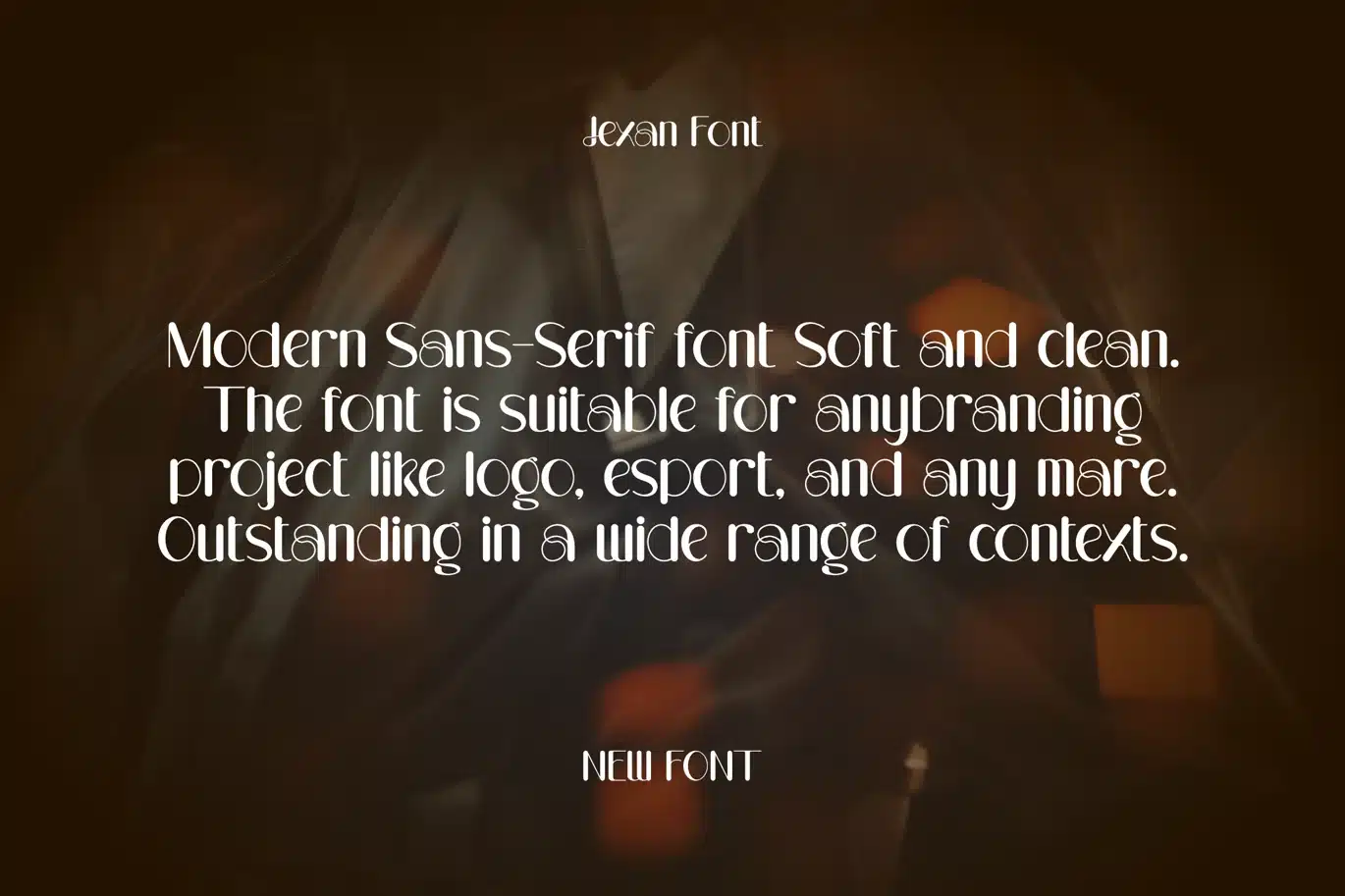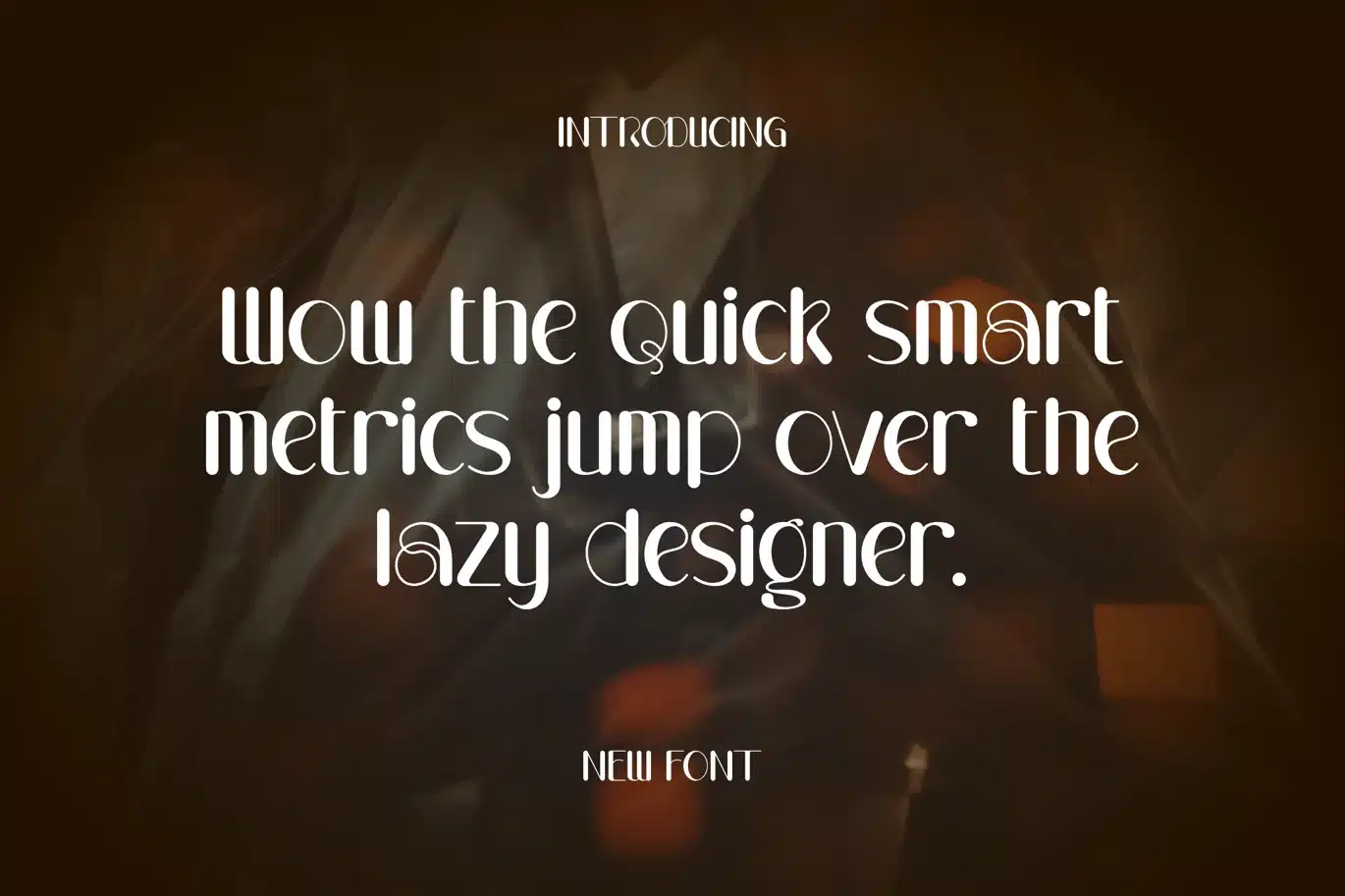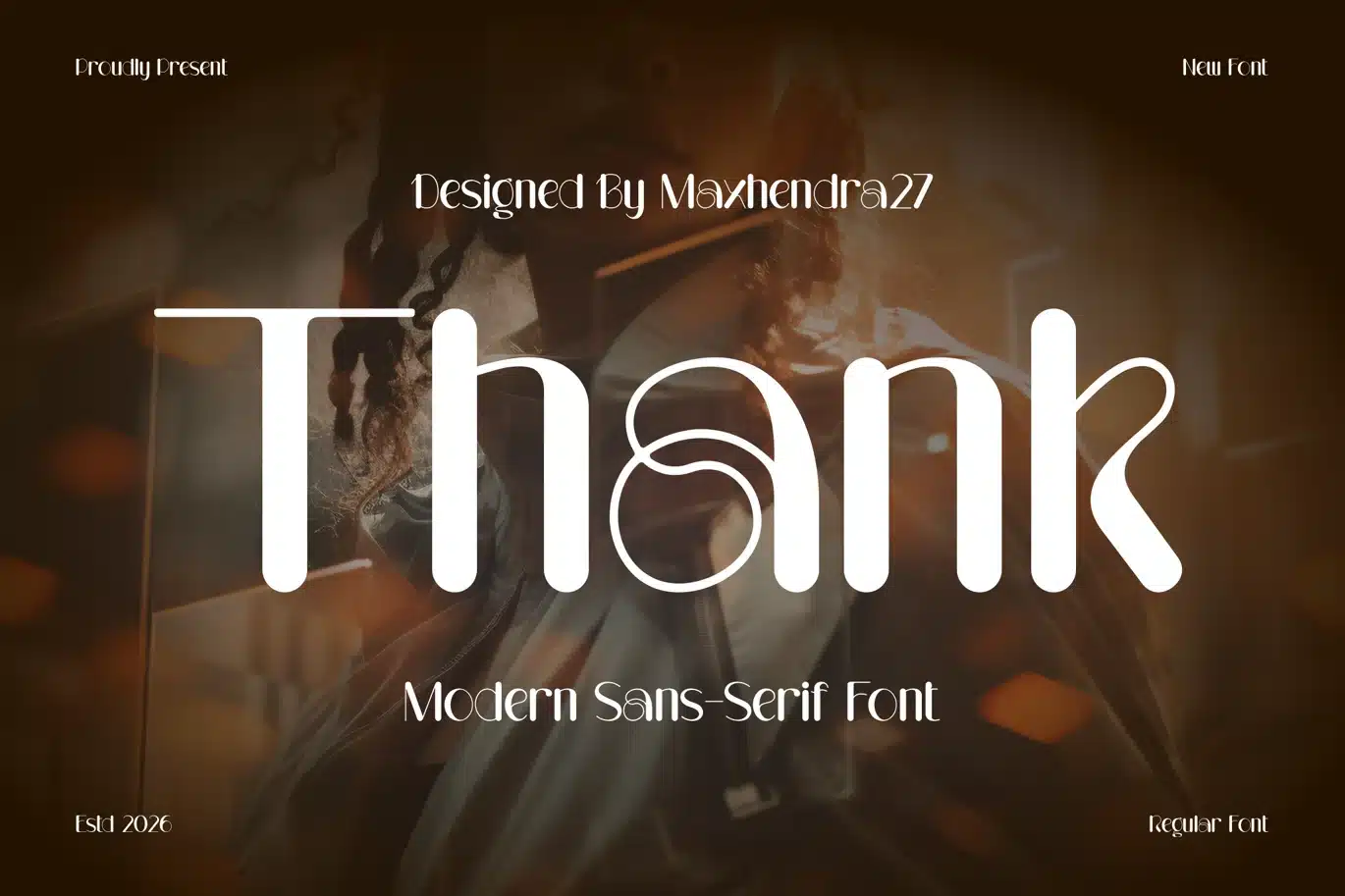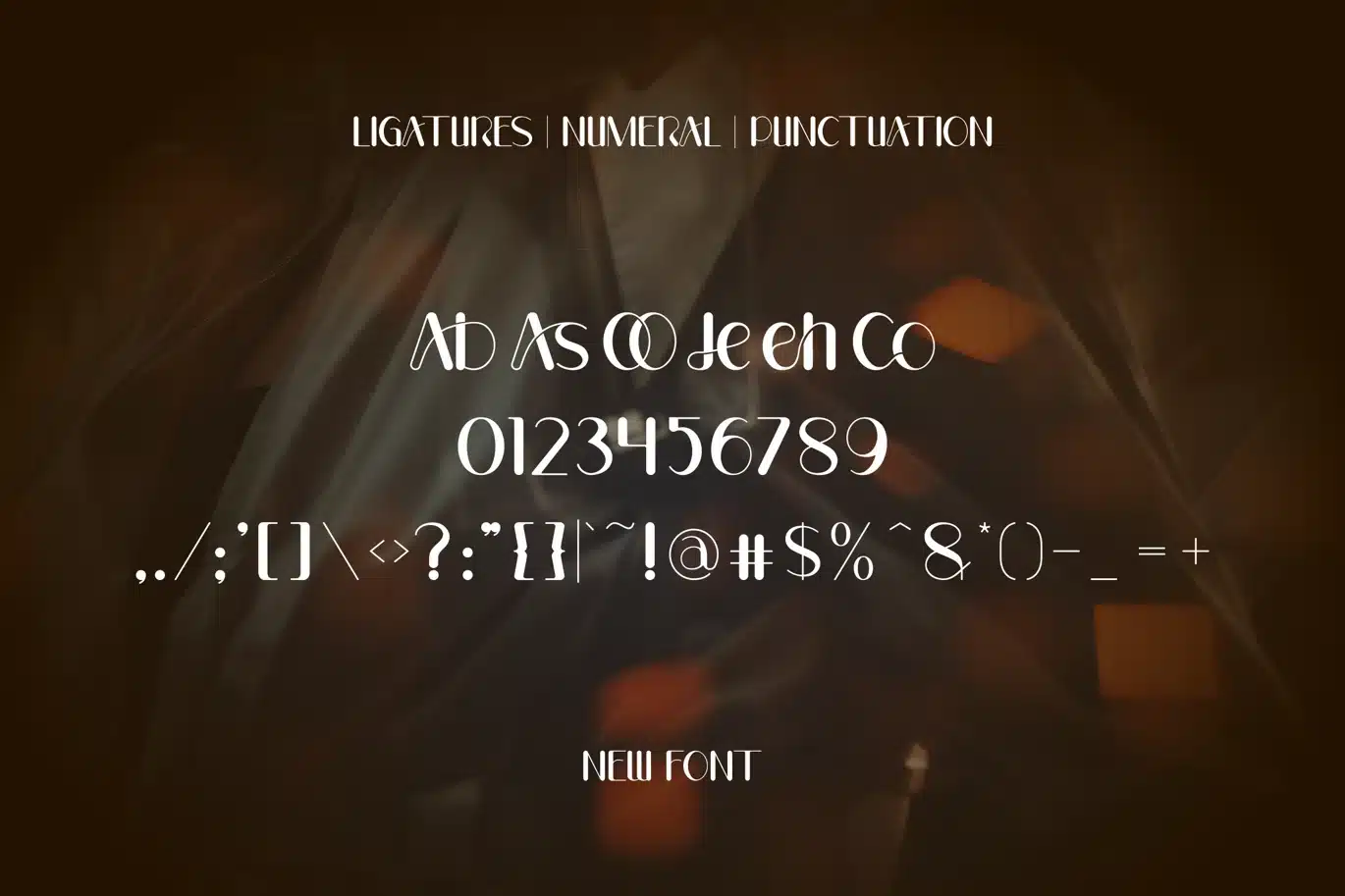
Jexan – Modern Sans-Serif Display Font
maxhendra27
Jexan is a super thick typeface with more traditional letter shapes, making it perfect for creating (or recreating) the concise look of film poster production credits.
Feature :
- Uppercase Characters
- Lowercase Characters
- Ligature Characters
- Punctuation & Numbers